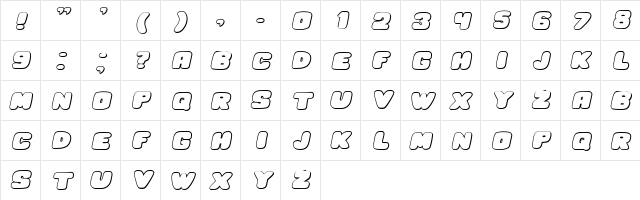
Hesitation Shadow Italic
Hesitation Shadow Family
Design Context for Hesitation Shadow
Hesitation Shadow is built around its visual character rather than neutral utility - its distinctive forms are designed to make an impression at display sizes. The slanted form adds forward momentum and visual energy.
Font Pairing: Pair with a clean neutral sans-serif for body copy to let Hesitation Shadow's character lead without overwhelming the composition.
Pro Tip: Use Hesitation Shadow exclusively at display sizes - it was designed to be seen, not read at length. Let a neutral companion handle body copy.